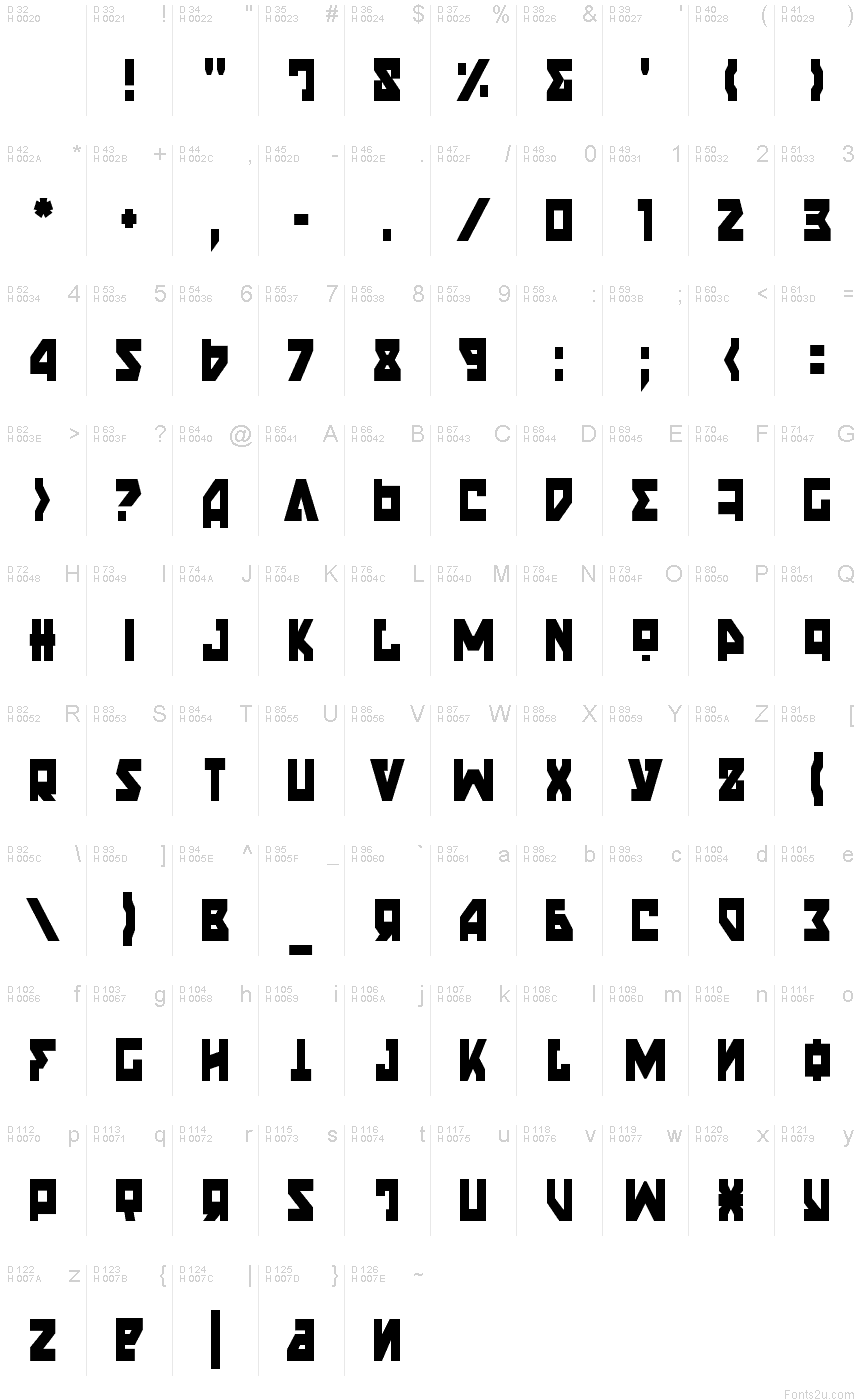
Nyet Condensed
Nyet Condensed font by Iconian Fonts is a free Russian display font with angular, block-built letterforms and narrow proportions. The characters use hard straight edges, sharp cuts, and heavy internal slashes that give the set a rigid, geometric rhythm.
This free font fits posters, album covers, title cards, gaming art, streetwear graphics, and bold event notices where a Cyrillic-inspired style needs a strong graphic edge. Its compressed shape and cutout construction also work well for logos, signage, and short headings that need an assertive, themed look.